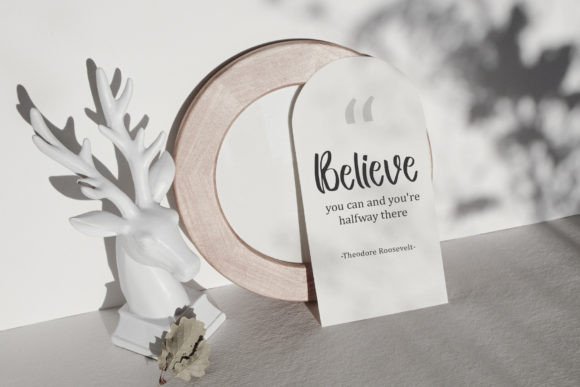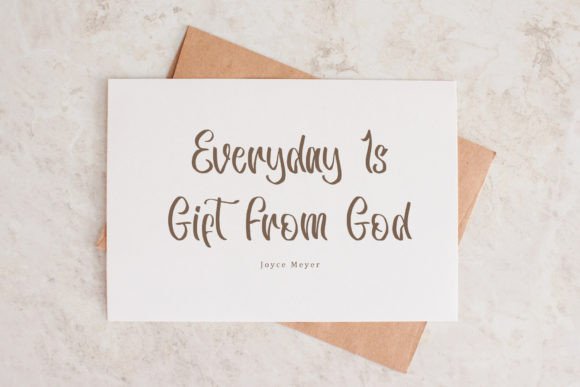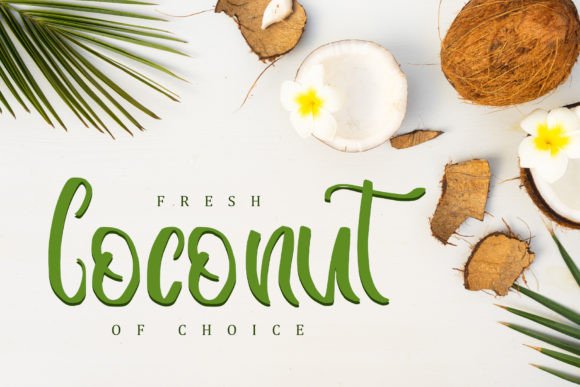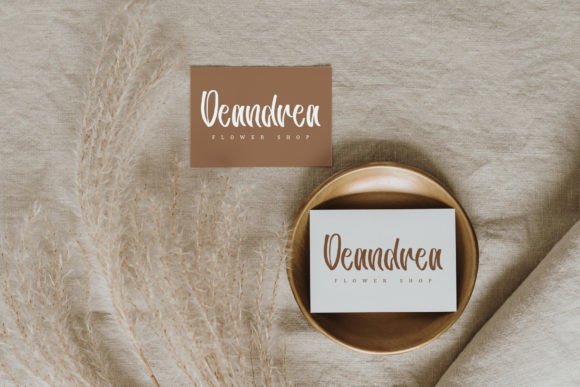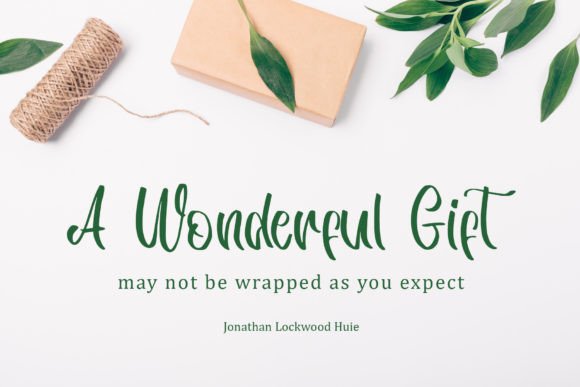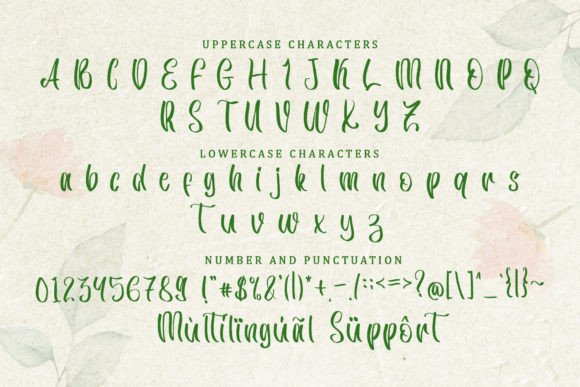
Find Your Perfect Script: Introducing Atyane Font
As designers, we’ve all been there – staring at a blank canvas, waiting for inspiration to strike. Sometimes, it’s not about finding the perfect color palette or typography, but about falling in love with a font that sets the tone for our creative vision. For me, that moment came when I discovered the Atyane Font – a sweet and cursive handwritten font that effortlessly adds a touch of whimsy to any design project.
At its core, the Atyane Font is designed to evoke feelings of joy and romance, making it the perfect fit for branding, logo design, wedding invitations, and more. Its casual elegance is sure to captivate audiences and leave a lasting impression. As a designer, having access to versatile fonts like Atyane Font can be a game-changer, allowing us to experiment and push the boundaries of our creativity.
Atyane Font Key Features
- Unique Characteristic: Atyane Font features a unique blend of modern and elegant design elements, making it suitable for various design applications, including branding, advertising, and editorial content.
- Language Support: Atyane Font supports multiple languages, including English, Spanish, French, German, Italian, and many others, making it a versatile choice for global design projects.
- Font Style: The font is available in regular, italic, bold, and bold italic styles, providing designers with a range of options to suit their design needs.
Atyane Font Review
Atyane Font is a beautiful, elegant script font that’s perfect for creative projects and design applications where a touch of sophistication is needed. ✨ The font’s unique characteristics, such as its flowing connections and cursive strokes, make it an excellent choice for wedding invitations, quotes, and other personal projects.
One of the standout features of Atyane Font is its legibility. The font is clear and easy to read, even at small sizes, making it an excellent choice for body text as well as headings. ✨ Additionally, the font’s versatility allows it to be used in a wide range of contexts, from digital applications to print materials.
However, there are some limitations to consider. ⚠️ The font may not be suitable for large blocks of text, as its cursive nature can make it difficult to read. Additionally, the font’s connections can sometimes be too loose or too tight, depending on the context in which it’s being used.
Overall, I would give Atyane Font a solid 4 out of 5 stars. It’s a beautiful, elegant font that’s perfect for creative projects, but it may not be suitable for every use case. Here are some key pros and cons:
- ✨ Beautiful, elegant design
- ✨ Excellent legibility
- ✨ Versatile and suitable for a wide range of contexts
- ⚠️ May not be suitable for large blocks of text
- ⚠️ Loose or tight connections can be a problem
To get the most out of Atyane Font, consider the following tips:
- Use Atyane Font for headings and titles to add a touch of elegance.
- Pair Atyane Font with a clean and simple sans-serif font for body text.
Atyane Font is ideal for:
- Editorial and design projects
Alternatives to Atyane Font
Great Vibes is a modern, elegant script font ideal for creative projects, branding, and advertising. It features flowing connections between letters, making it perfect for use in headings and titles. Great Vibes is a more elegant and refined alternative to Atyane Font, suitable for formal and high-end designs.
Carolyna Pro is a sophisticated script font with a classic touch, suitable for use in luxury branding, invitations, and high-end publications. It features a more refined and polished look compared to Atyane Font, making it ideal for formal and elegant designs. Carolyna Pro is a great choice for designers who want a more classic and timeless look.